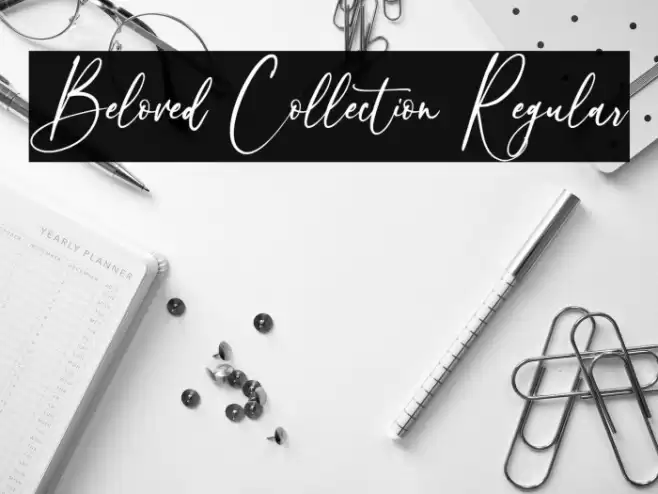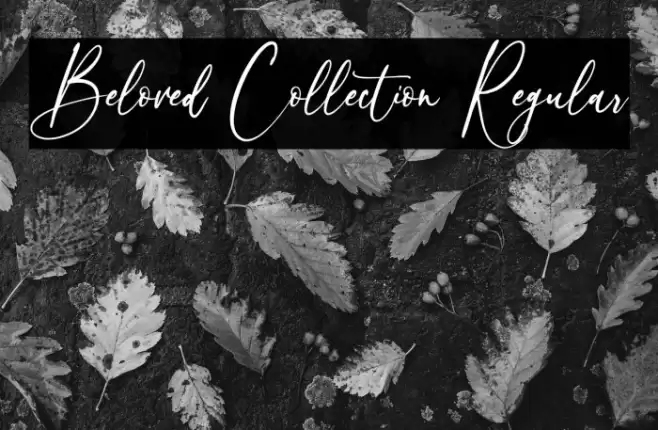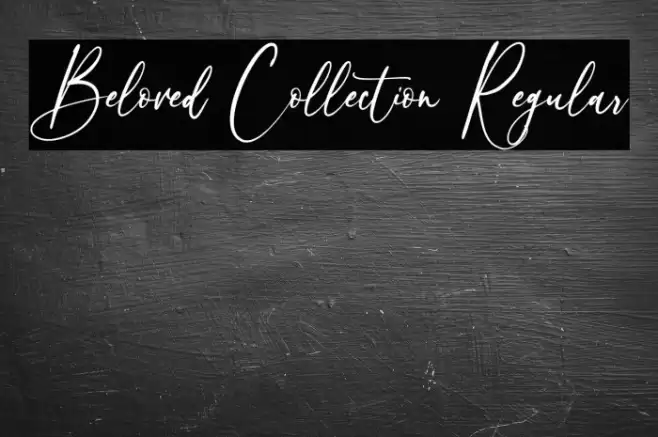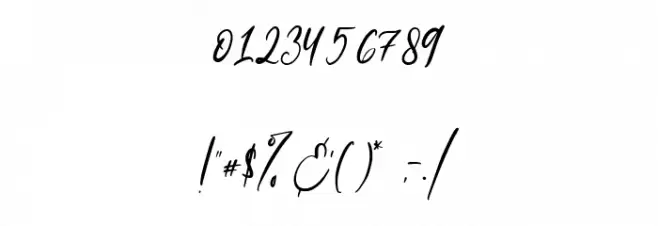
Beloved Collection Regular Font
Beloved Collection Regular Description
This elegant script font features a flowing, handwritten style with graceful curves and loops. The uppercase letters are tall and slender, with a sophisticated flair that adds a touch of elegance to any design. The lowercase letters maintain a consistent flow, enhancing readability while retaining a stylish appearance. Numbers and special characters are designed with the same attention to detail, ensuring a cohesive look across all elements. This font is perfect for projects that require a personal, artistic touch.
An elegant, flowing script font with a handwritten style from Regular fonts.
- Proposed Projects: Ideal for wedding invitations, greeting cards, branding, and logo design.
- Overall Style: Elegant
- Use Case: Logos, Invitations, Artistic projects